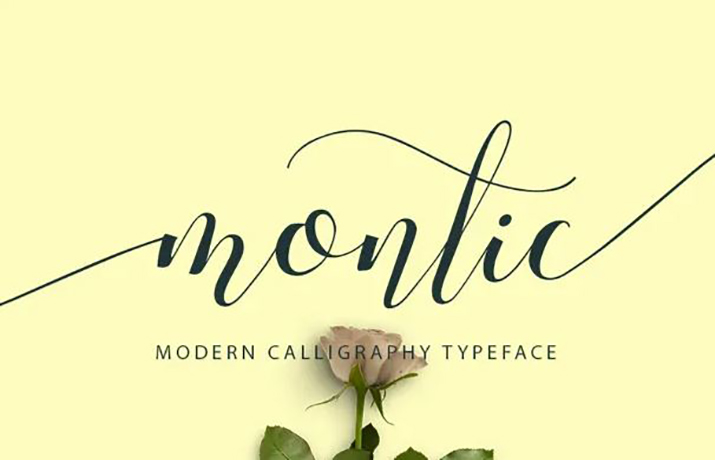
Montic Script Font is a beautiful script-style calligraphy typeface that also comes with a handwritten lettering style.
It’s perfect for making stylish greeting cards and wedding invitations. The font also includes many alternates and ligatures to add stylistic characters.
The characters of this font have their own unique style of design which makes the whole design more beautiful.
It comes in a single regular style that has Truetype features. This single style has more than 130 characters with several language support as well.
| Font Name: | Montic Script Font Family |
| Style: | Script, Calligraphy, Modern |
| Font Designer: | William Morris |
This font is perfect for making logos, labels, headlines, brand logos, invitation cards, birthday cards, and business cards for luxury brands and high-end products.